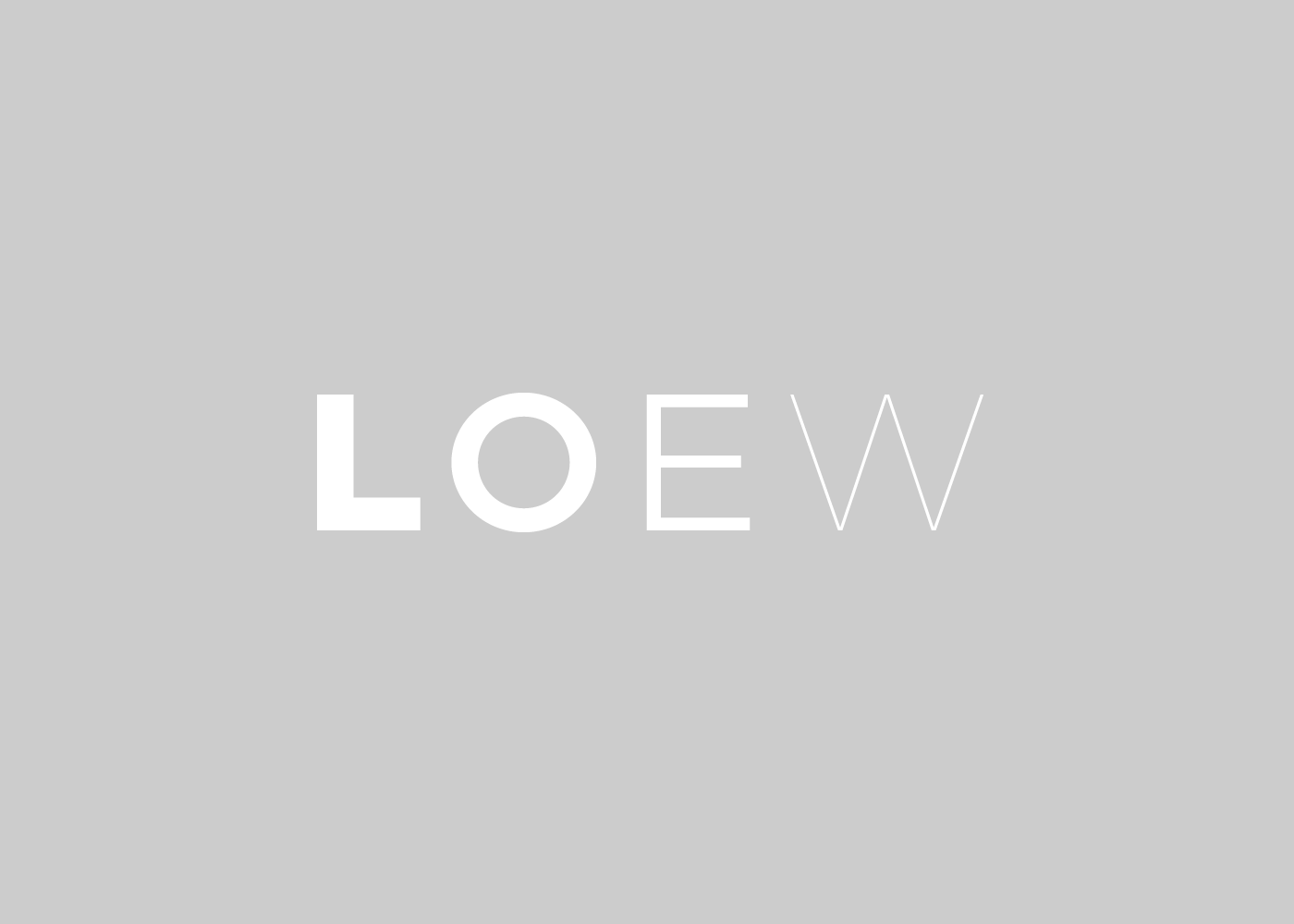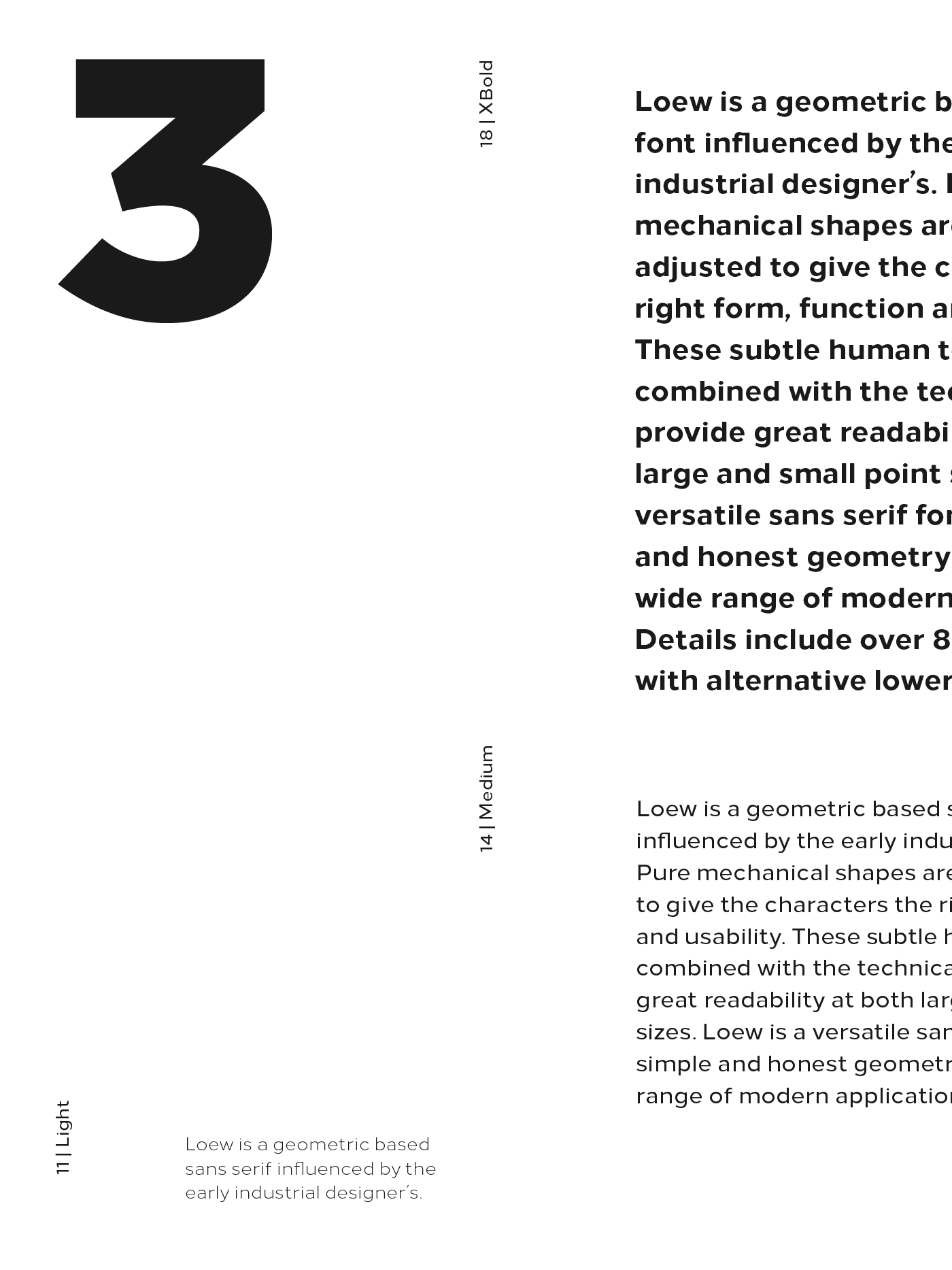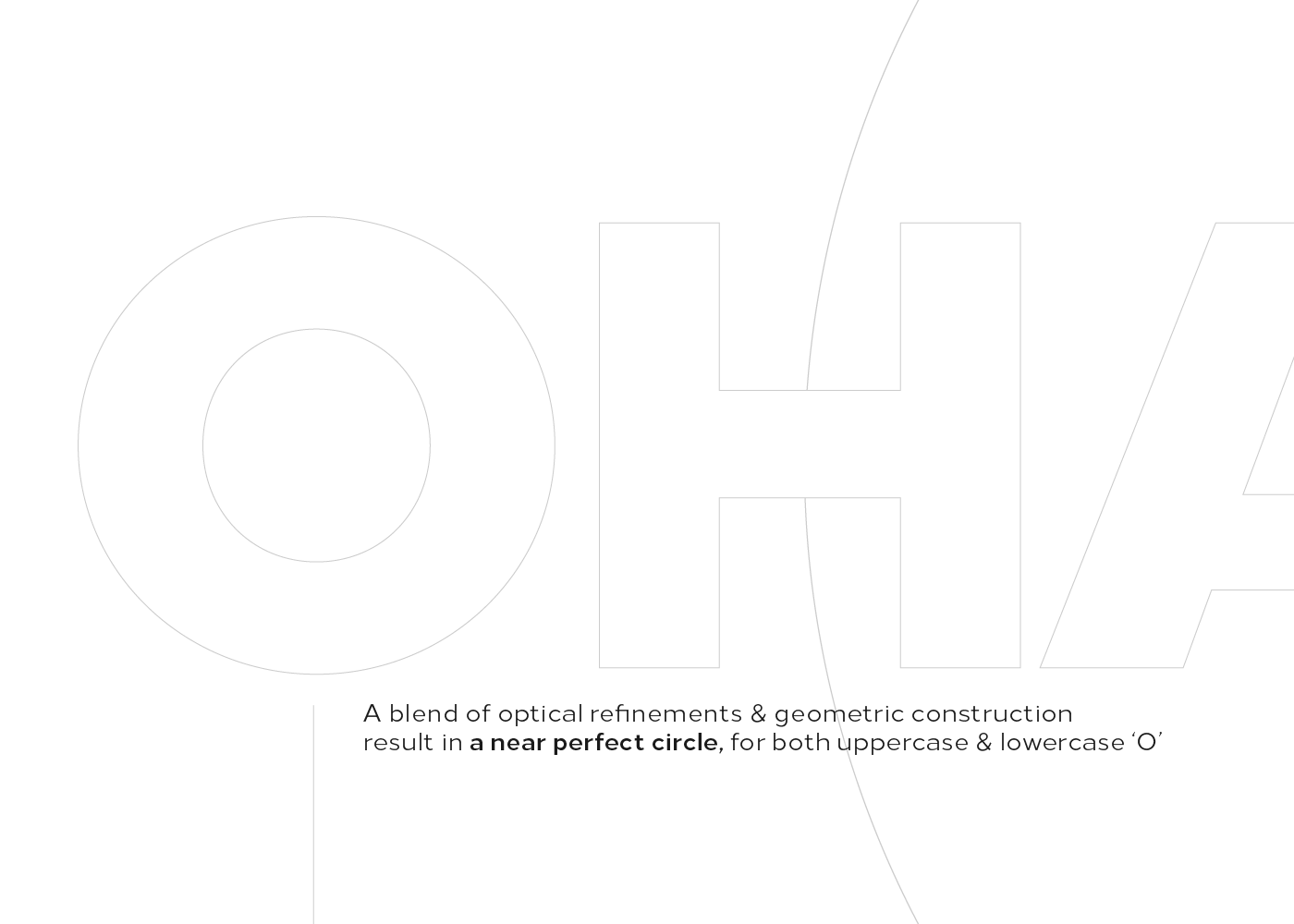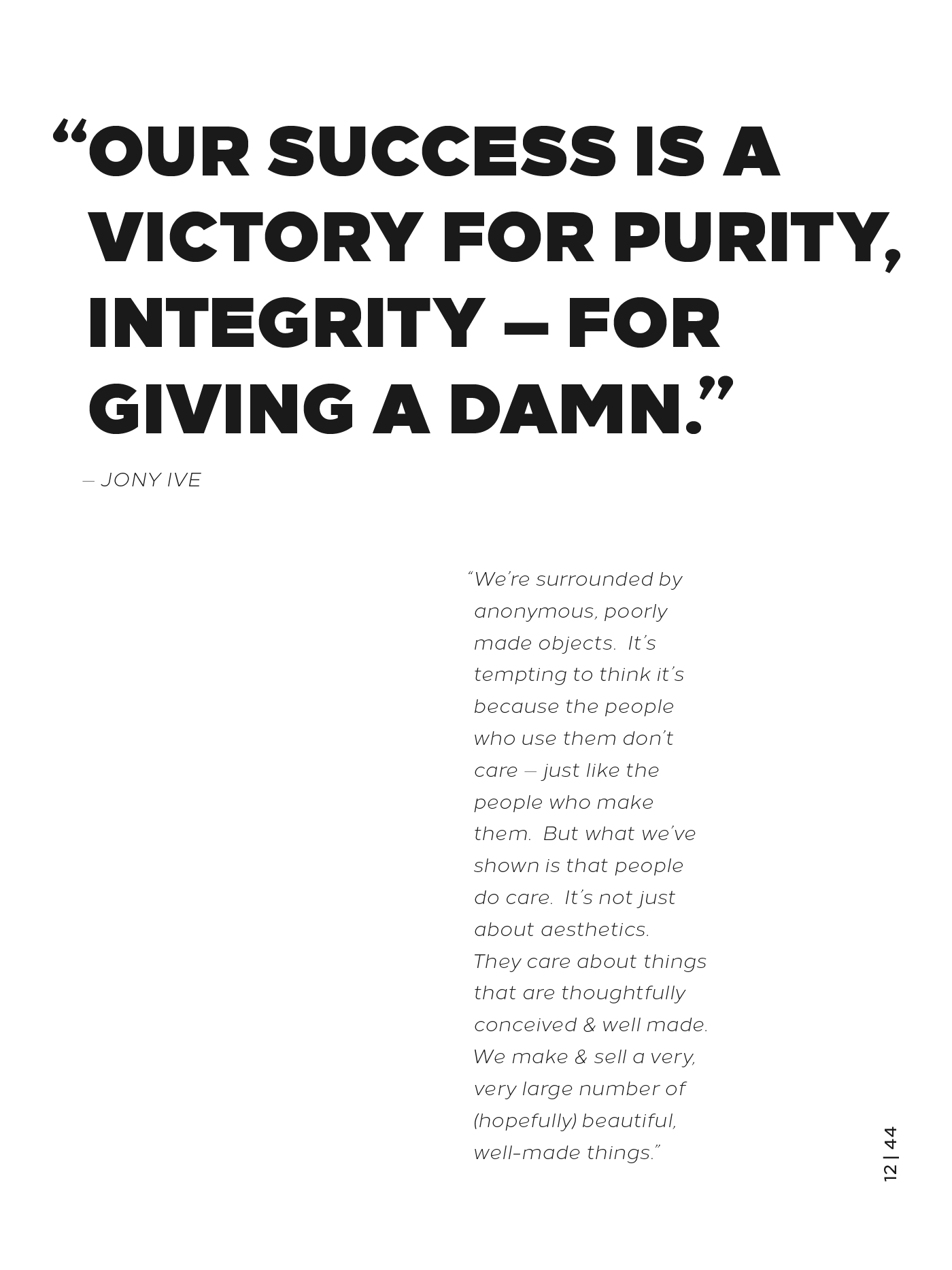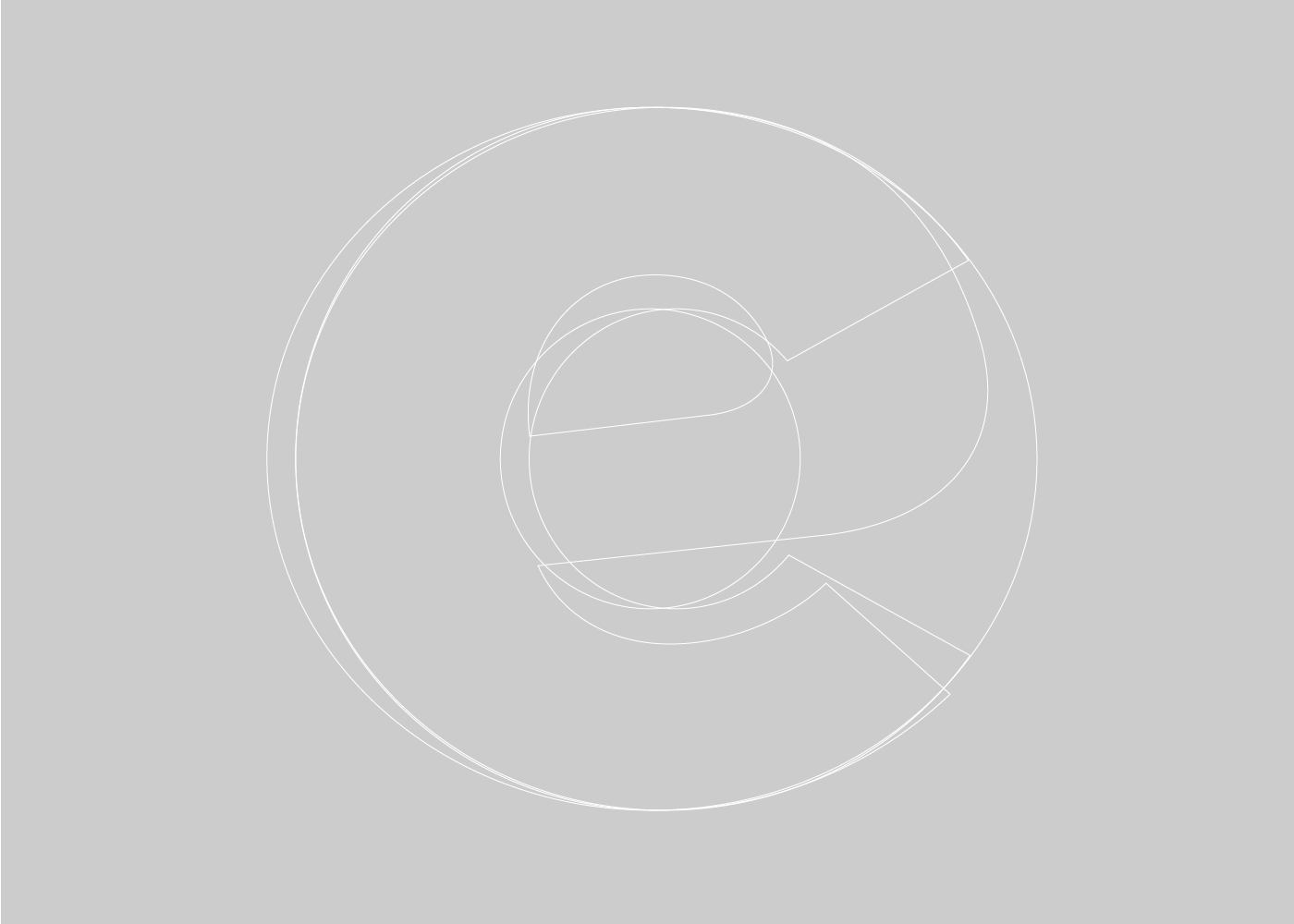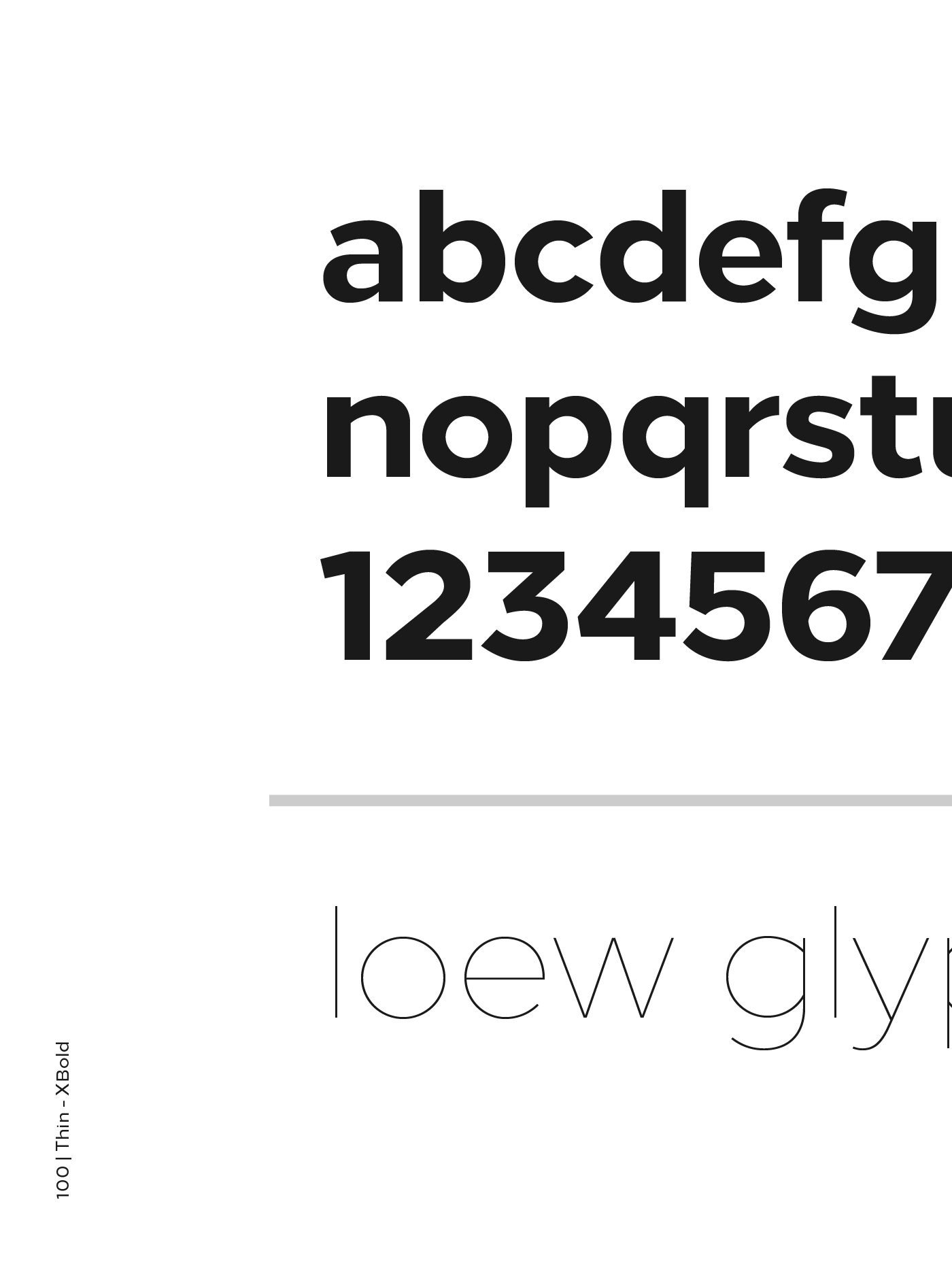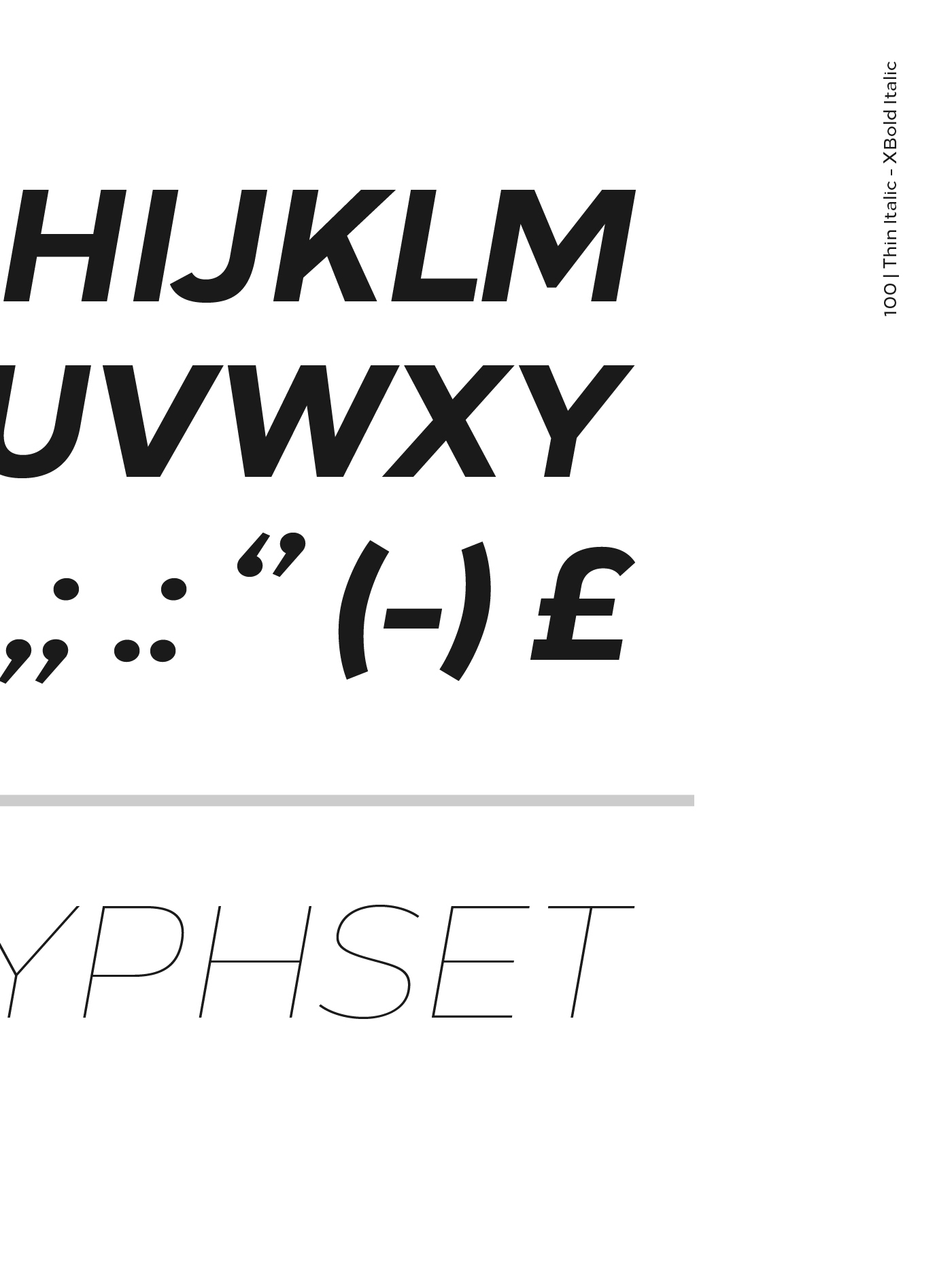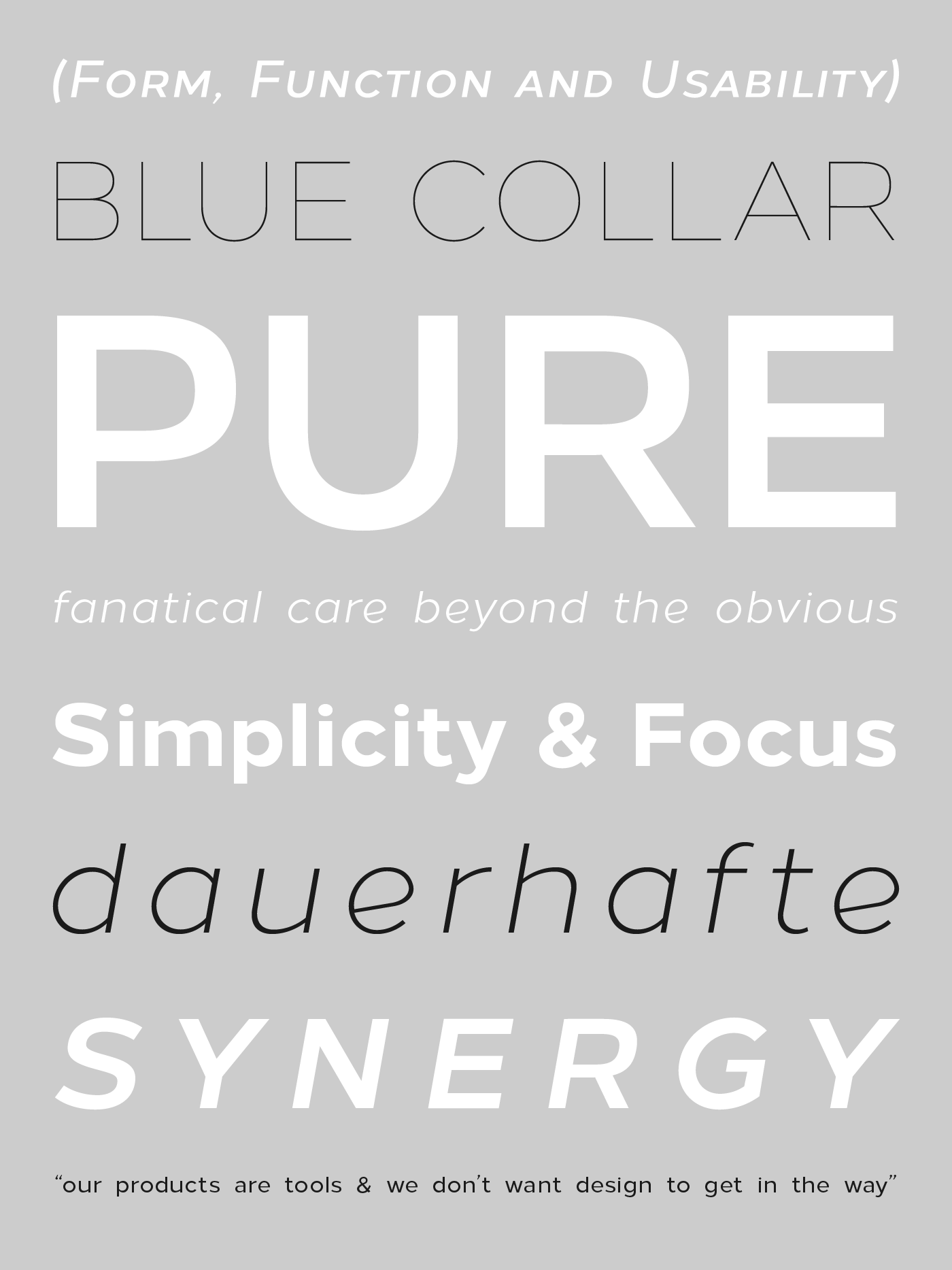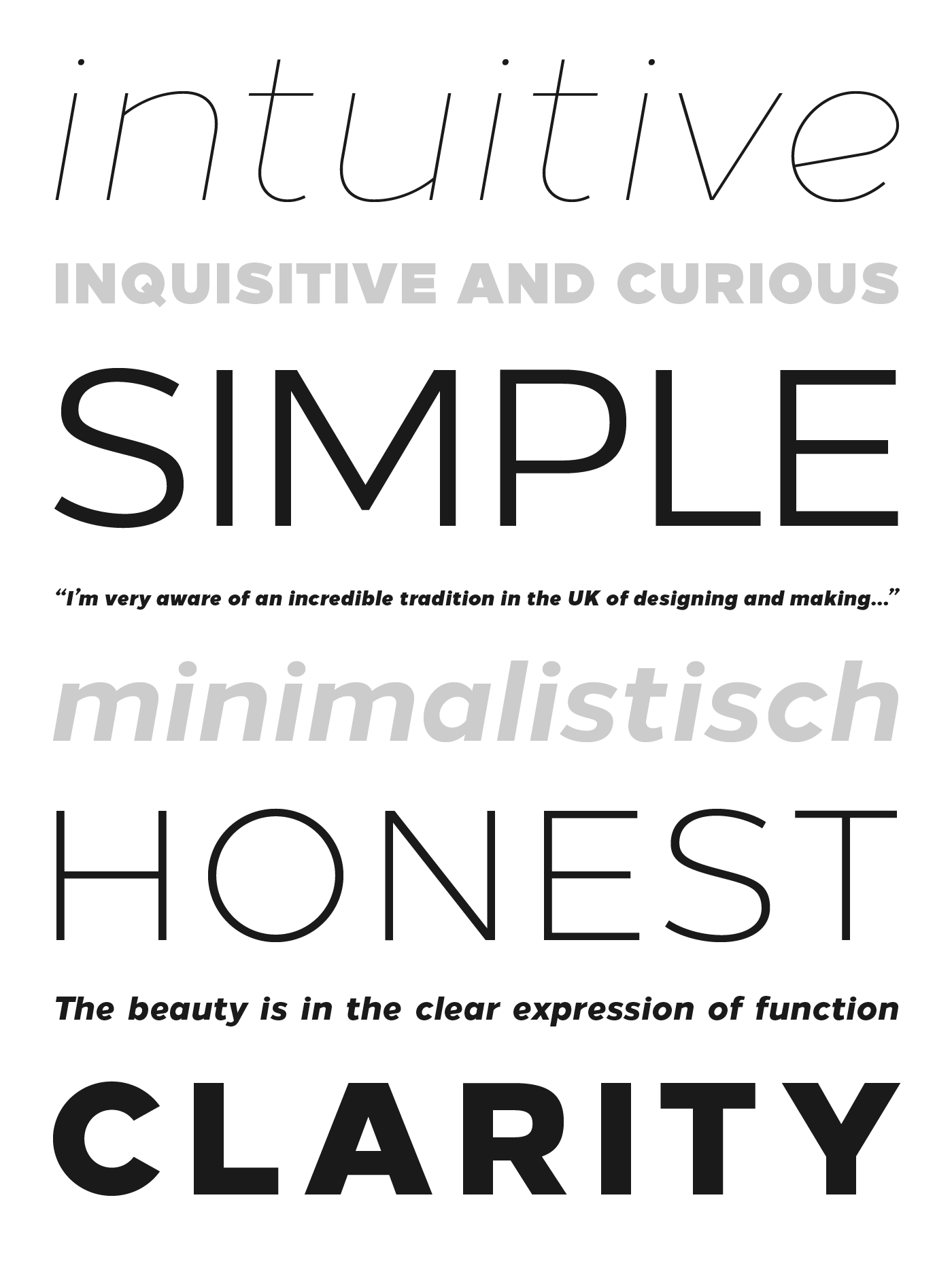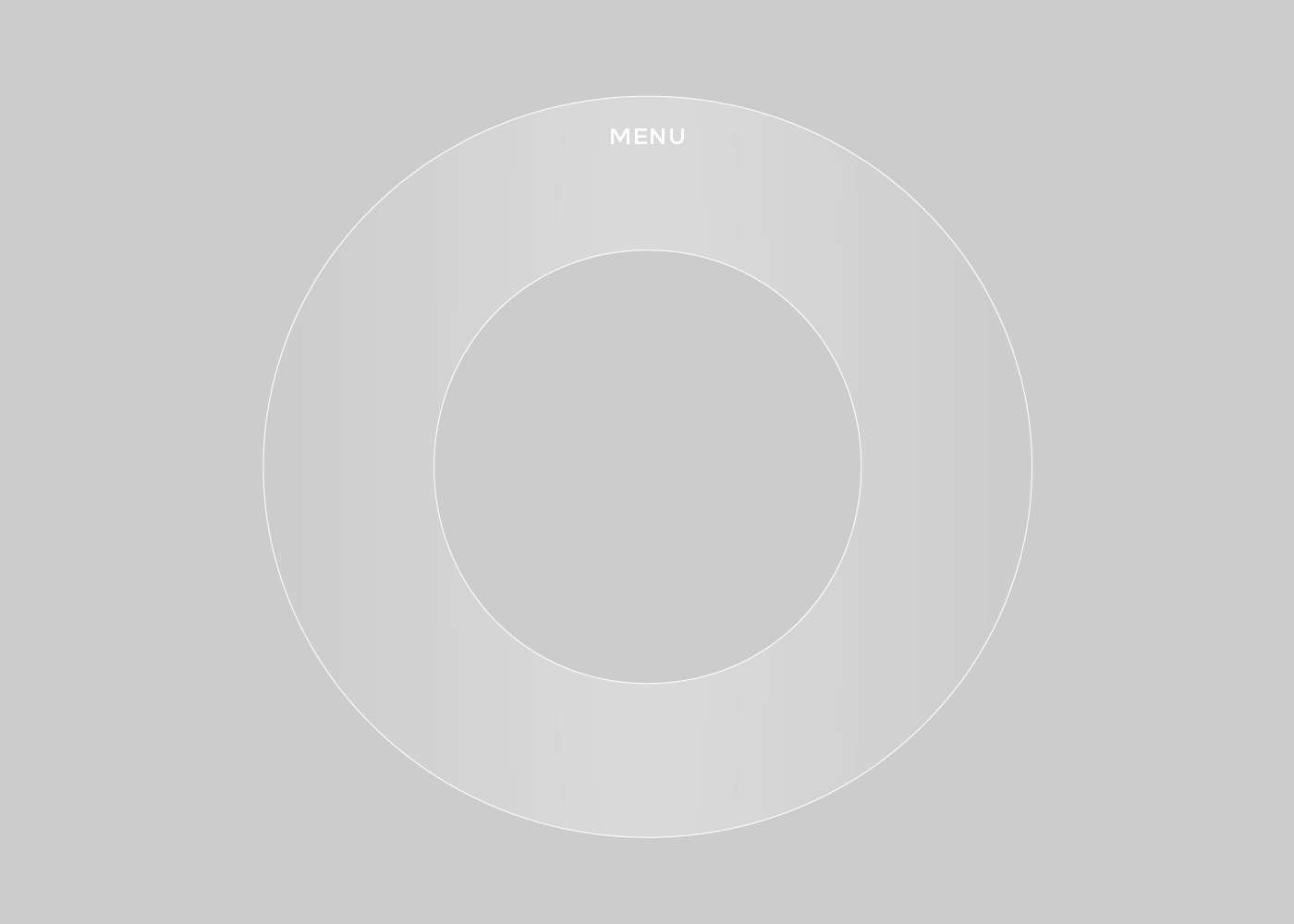
Loew is a geometric based sans serif font influenced by the early industrial designer’s. Pure mechanical shapes are carefully adjusted to give the characters the right form, function and usability. These subtle human touches combined with the technical detail provide great readability at both large and small point sizes. Loew is a versatile sans serif font with simple and honest geometry aimed at a wide range of modern applications. Details include over 800 characters with alternative lowercase a, e and g. Seven variations of numerals, true small caps with accents, manually edited kerning and Opentype features.